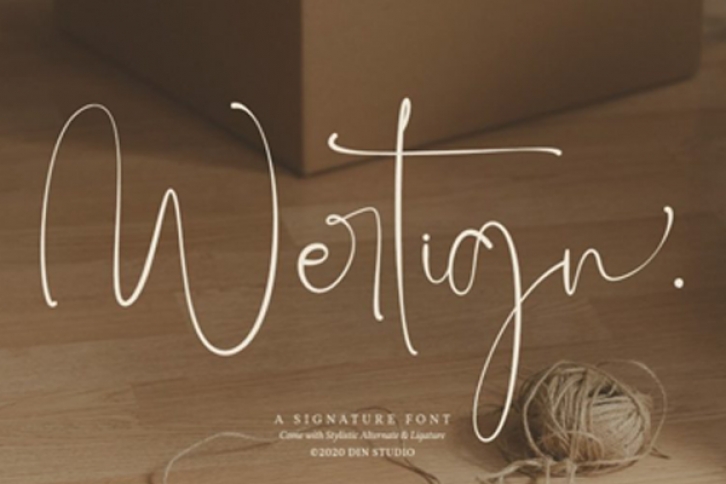
Introducing Wertign – A Signature Font
This handmade font typeface with elegant style looks very interesting for loads of different projects and promotions. It is perfect to be used on your website, for your social media branding, Pinterest banners, printed products, and more!